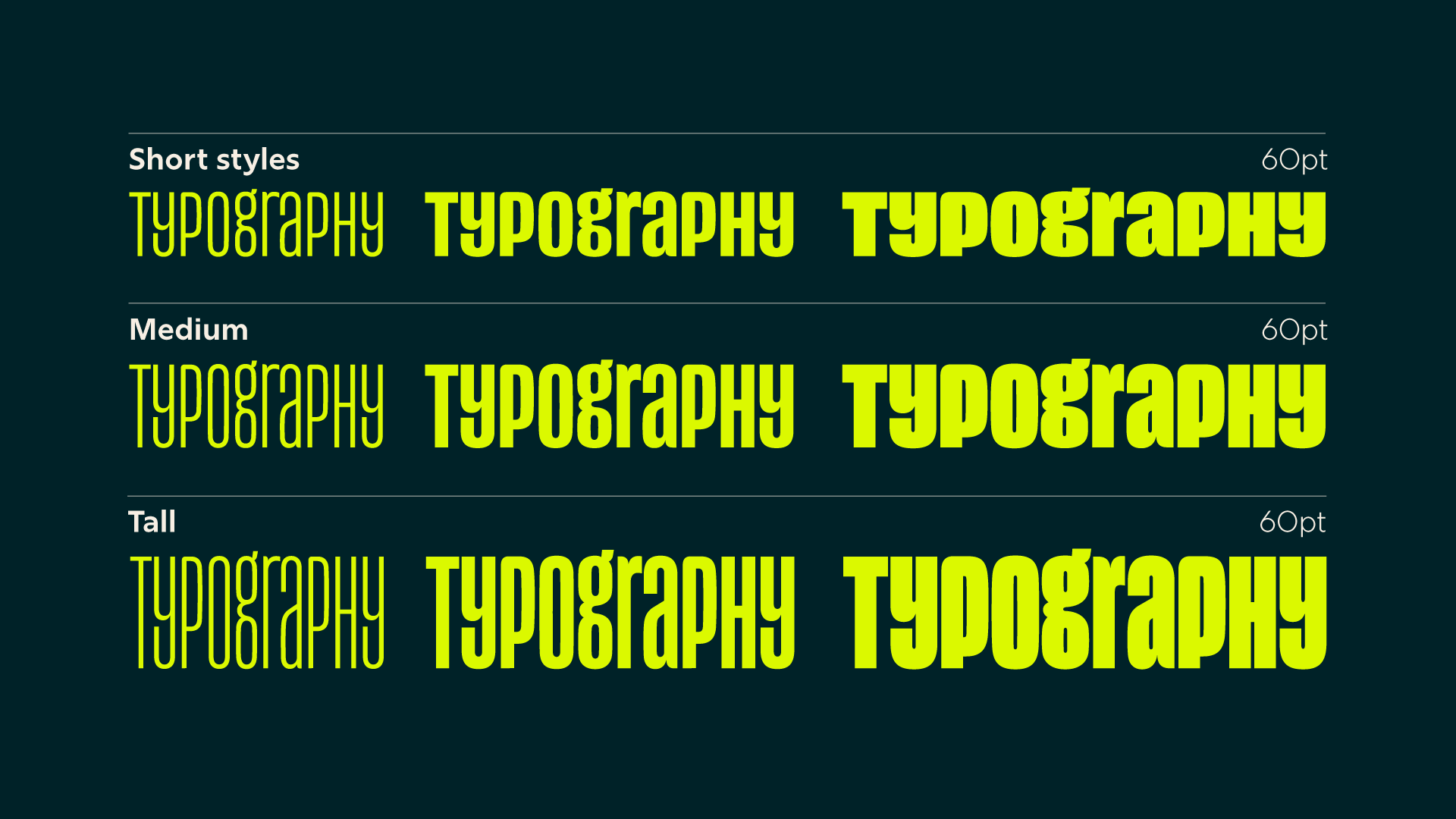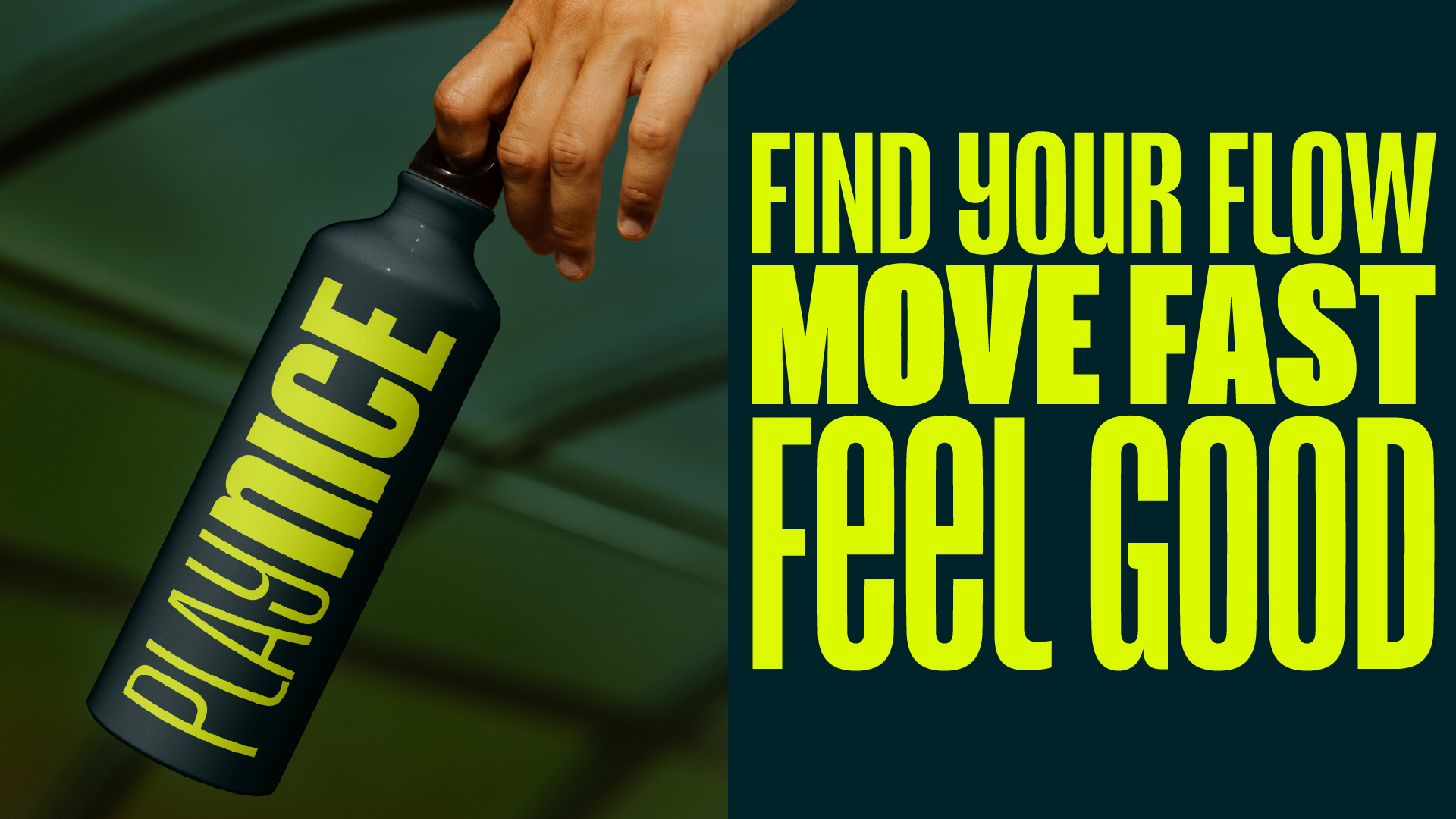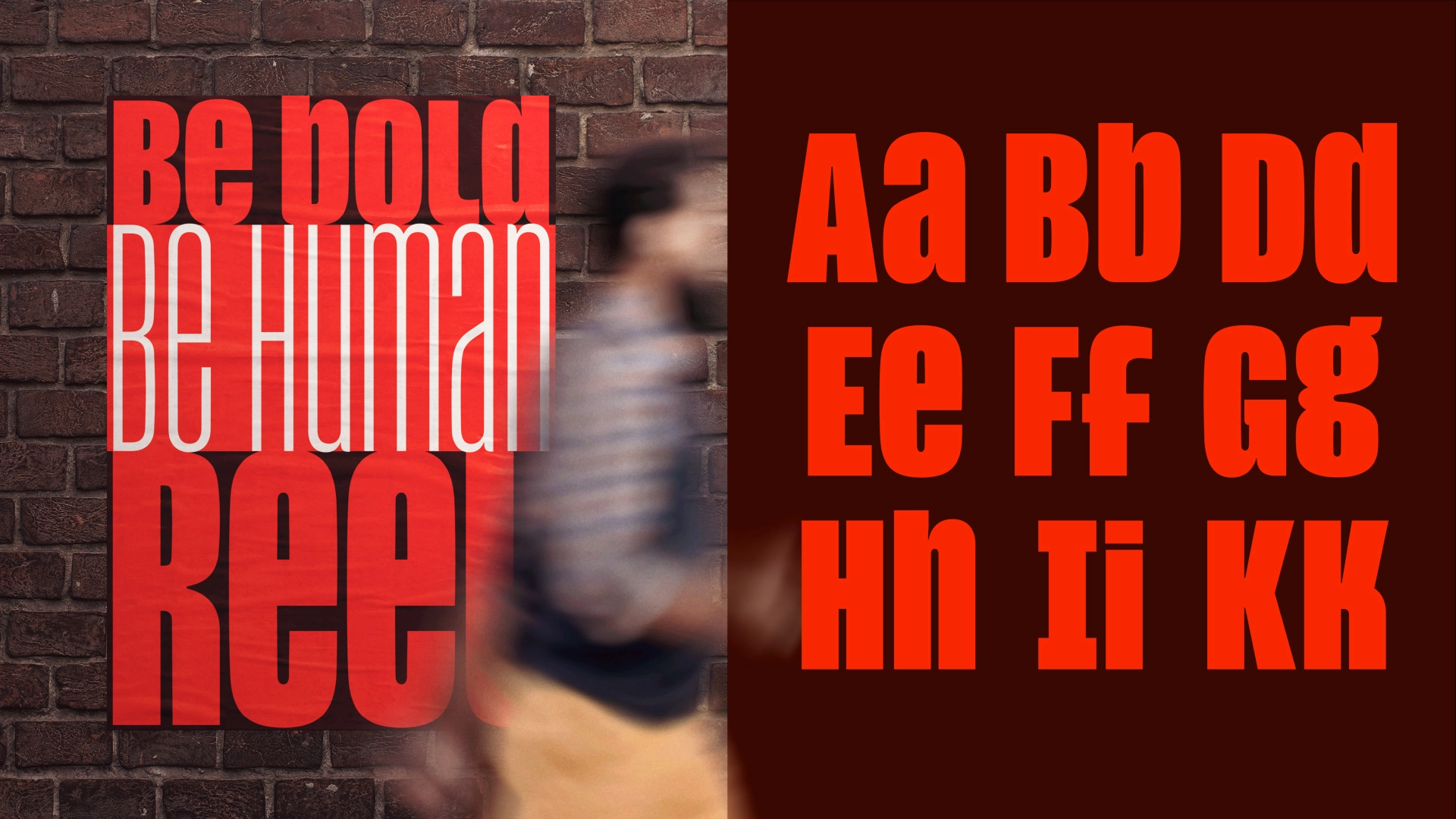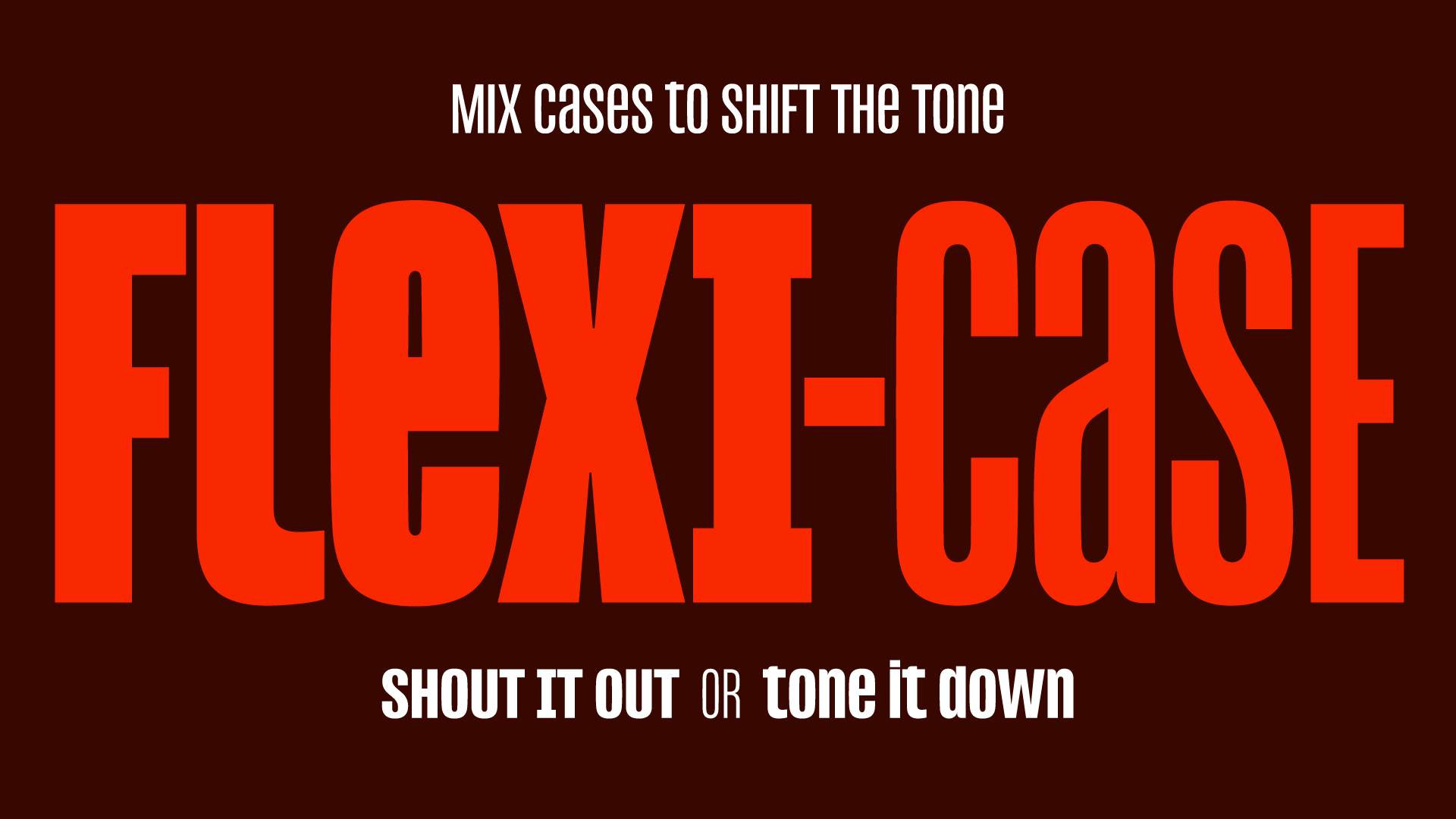
This new typeface is perfect for a society that's done with shouting
For years, ALL CAPS has been the default setting for impact. It's bold, it's loud, it's everywhere, from political slogans to Instagram captions. But that ubiquity has a cost: when everything shouts, nothing stands out, and the tone of voice it carries has started to feel less like confidence and more like aggression.
Now, type designer Jamie Clarke has come up with quite a clever answer. His solution isn't to abandon capitals, but to rethink what they're for.
Reel introduces what he calls a Flexi-case system, letting designers blend capitals and lowercase within the same word or headline, without losing the tight, rectangular structure that makes condensed type so effective on a page or screen. The result is type that can still command attention, but doesn't have to bully its way there.
Typeface for the age
Jamie is a type designer with a track record in exactly this kind of expressive, high-impact lettering, having worked on commissions for Aardman and Disney+, alongside a retail catalogue distributed through Adobe Fonts. He knows how headline type behaves under pressure, and Reel is built specifically for that condensed, high-impact space where every letterform earns its place.
What sets the project apart is the research behind it. Working with writer and researcher Doug Wilson, who directed the Linotype documentary, Jamie traced the modern fixation on capitals back further than most people would expect: to at least 1856, long before the internet turned shouting into a design default.
If capitals signal authority, lowercase has come to signal something else entirely. Jamie points to a clear shift among artists and musicians, including Taylor Swift, Charli XCX and Bad Bunny, who've deliberately steered away from ALL CAPS in album titles and social media. Choosing lowercase has become a way of signalling authenticity and vulnerability; a deliberate softening at a moment when so much public communication feels combative.
It's a trend worth paying attention to if you work in branding, editorial design or any field where typographic tone of voice matters. Lowercase isn't just a stylistic choice any more; it's becoming a statement in itself, a pushback against the shoutiness of contemporary visual culture. For creatives briefing in headline treatments, that's a good cultural signal to have on the radar.
Reel's Flexi-case system is Jamie's practical response to this cultural shift. Rather than forcing designers to choose between the punch of capitals and the warmth of lowercase, it lets both coexist within the same headline, with lowercase letters given equal height and visual presence to capitals.
That means you can dial tone up or down within a single piece of type, sharpening it for a moment of real impact, or softening it where the message calls for something more conversational.
Jamie's clear about what he's trying to achieve here. "Reel is designed to be expressive, not oppressive," he explains. "I wanted to see if a typeface could still have strength while feeling more conversational and human." It's a neat summary of the brief he set himself: keep the muscularity that makes condensed headline type work, but build in the flexibility to soften it when the message needs a different register.
That balance is harder to pull off than it sounds. Condensed headline faces live or die on consistency; letterforms need to sit together neatly, with even rhythm and colour across a line, or the whole thing falls apart visually. Giving lowercase the same height and presence as capitals risks breaking that structure entirely. Reel's achievement is holding the rectangular discipline of a true condensed headline face while still allowing real typographic movement within it.
What designers can learn
For working designers, the appeal here isn't just aesthetic, it's practical. A typeface that can move fluidly between authority and warmth gives you one tool that can do the work of two. A campaign that needs to open with a bold, attention-grabbing statement and close with something more intimate no longer needs a typeface swap to manage that shift in tone; Reel can carry both registers within a single family.
That's particularly relevant for brands trying to navigate the current cultural mood. Plenty of organisations want to project confidence without sounding like they're barking orders, and plenty more are wary of the connotations that heavy, all-caps treatments now carry in a political and social context. Reel offers a way to keep the visual punch of condensed capitals while dialling back the implied aggression, simply by letting some of those letters drop into lowercase.
For anyone briefing in headline type over the coming months, it's worth a look. Not because it's the loudest option on the market, but precisely because it isn't.